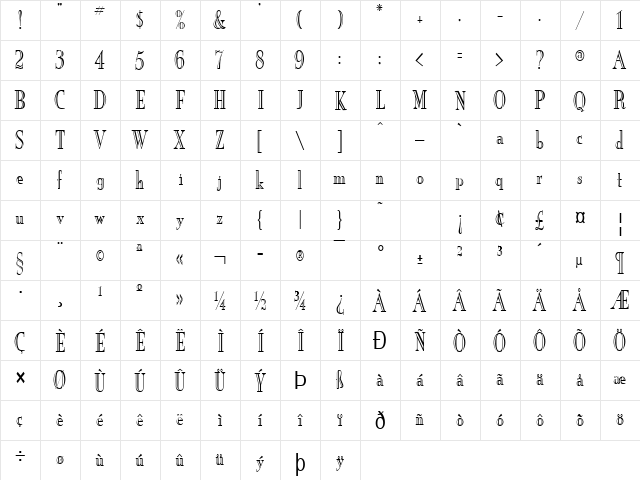
New England-Engraved-Condensed Normal
Design Context for New England-Engraved-Condensed Typeface
New England-Engraved-Condensed is built around its visual character rather than neutral utility — its distinctive forms are designed to make an impression at display sizes.
Font Pairing: Pair with a clean neutral sans-serif for body copy to let New England-Engraved-Condensed's character lead without overwhelming the composition.
Pro Tip: Treat New England-Engraved-Condensed as the centrepiece of your typographic hierarchy. One strong heading set in a decorative face can carry an entire layout.